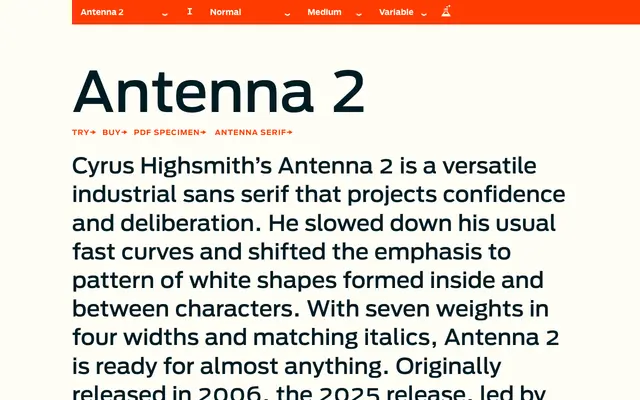
Antenna 2
Occupant Fonts · Cyrus Highsmith, Victoria Rushton · 2006
An industrial sans serif by Cyrus Highsmith, revisited in 2025 with extended language support, variable fonts and four widths across seven weights.
Originally released in 2006, Antenna 2 was drawn with deliberately slowed curves and a focus on the white shapes formed inside and between letters rather than on stroke contrast or optical warmth. The 2025 revision, led by Victoria Rushton, adds Cyrillic, Greek and extended Latin coverage alongside variable font support. Fifty-six static styles spanning Regular, Condensed, Extra Condensed and Compressed widths make it a genuinely broad workhorse for editorial, wayfinding and corporate applications.
Described explicitly as an industrial sans serif; the design foregrounds the pattern of counter and inter-character white space rather than stroke rhythm, placing it outside humanist or geometric traditions.